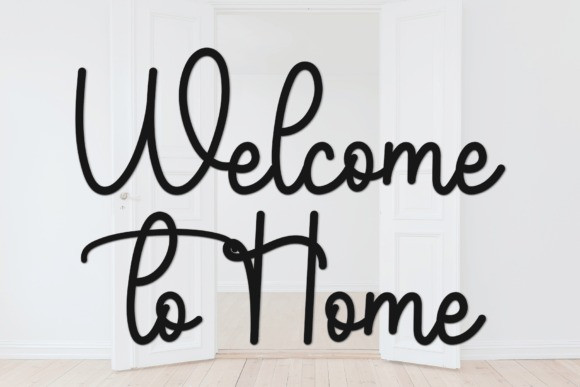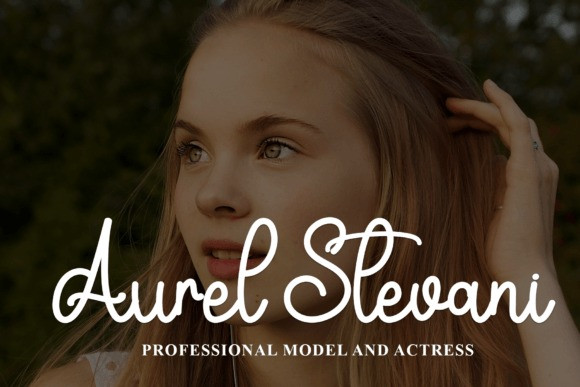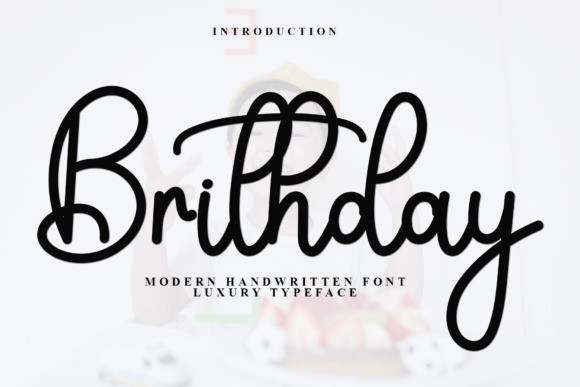
Brithday Script Font
Brithday Script Font is a fancy and elegant handwritten font. It has a luxurious and stylish look, perfect for making special occasions like birthdays even more memorable. The letters flow smoothly and beautifully, adding a touch of class to any project.